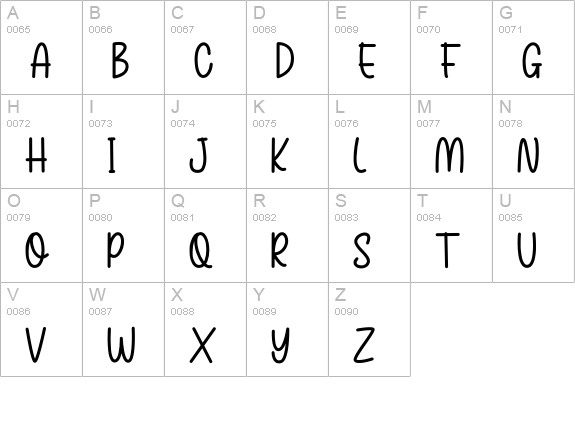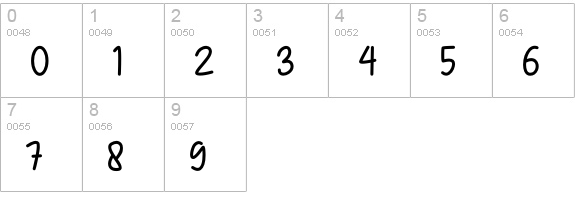
Holiday Family Font Details
Holiday Family is a free for personal use font in the Fancy > Cartoon category, designed by bluestype_studio. It has been downloaded 63 times and is available for Windows, Mac and Linux.
Holiday Family font is a delightful and festive typeface perfect for adding a touch of charm to your holiday projects. This font exudes warmth and joy, making it ideal for creating greeting cards, invitations, posters, and more for the holiday season. With its playful yet elegant design, Holiday Family font is sure to bring a smile to your audience's faces.